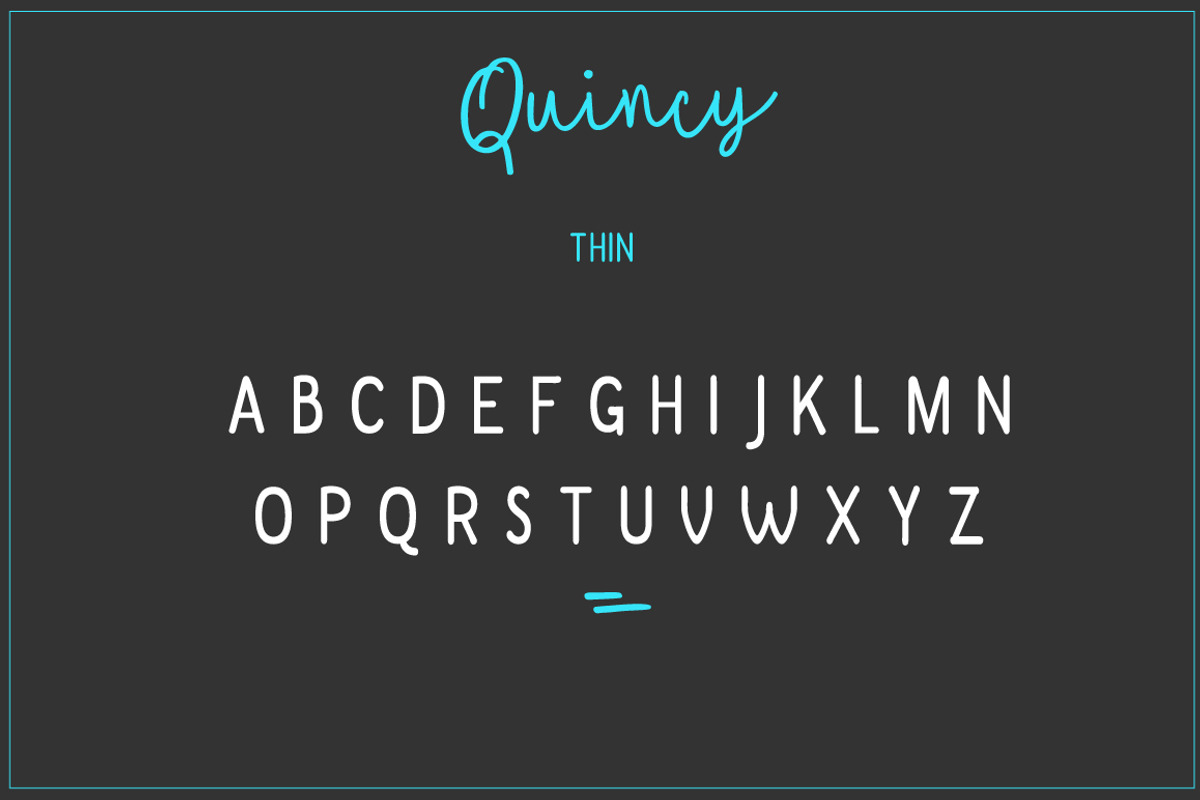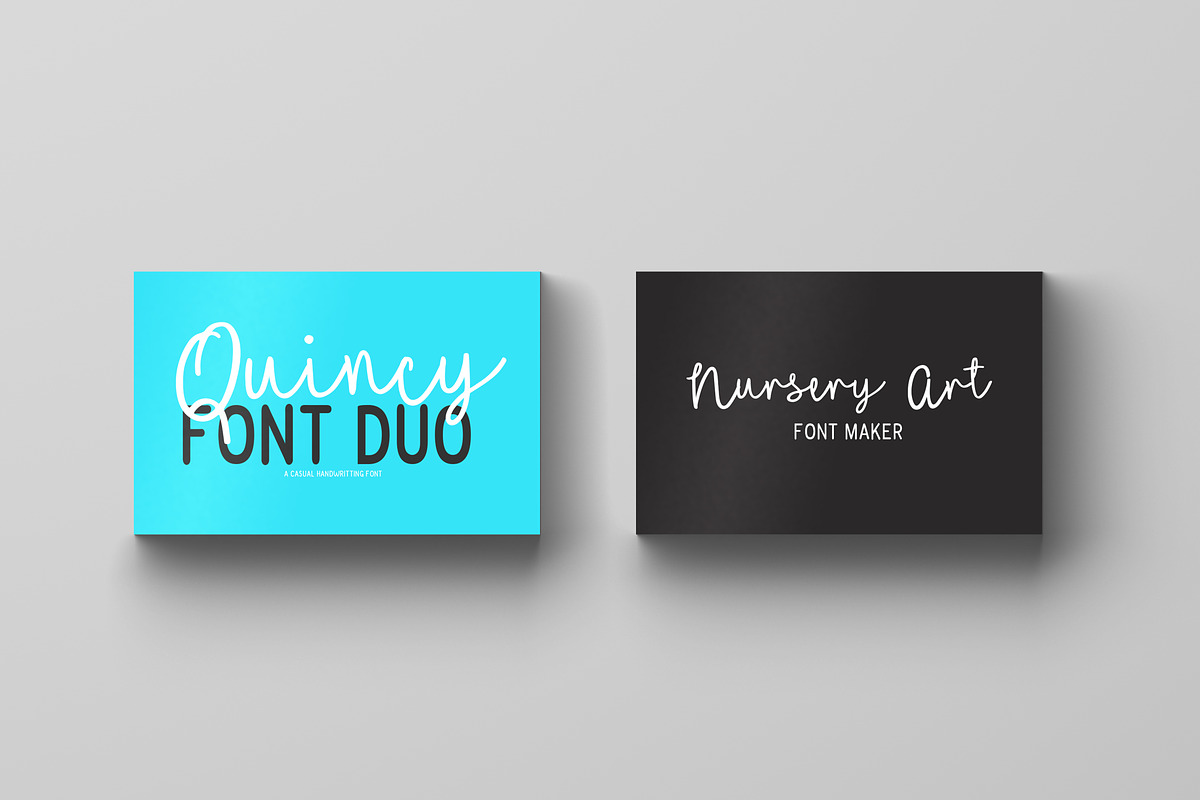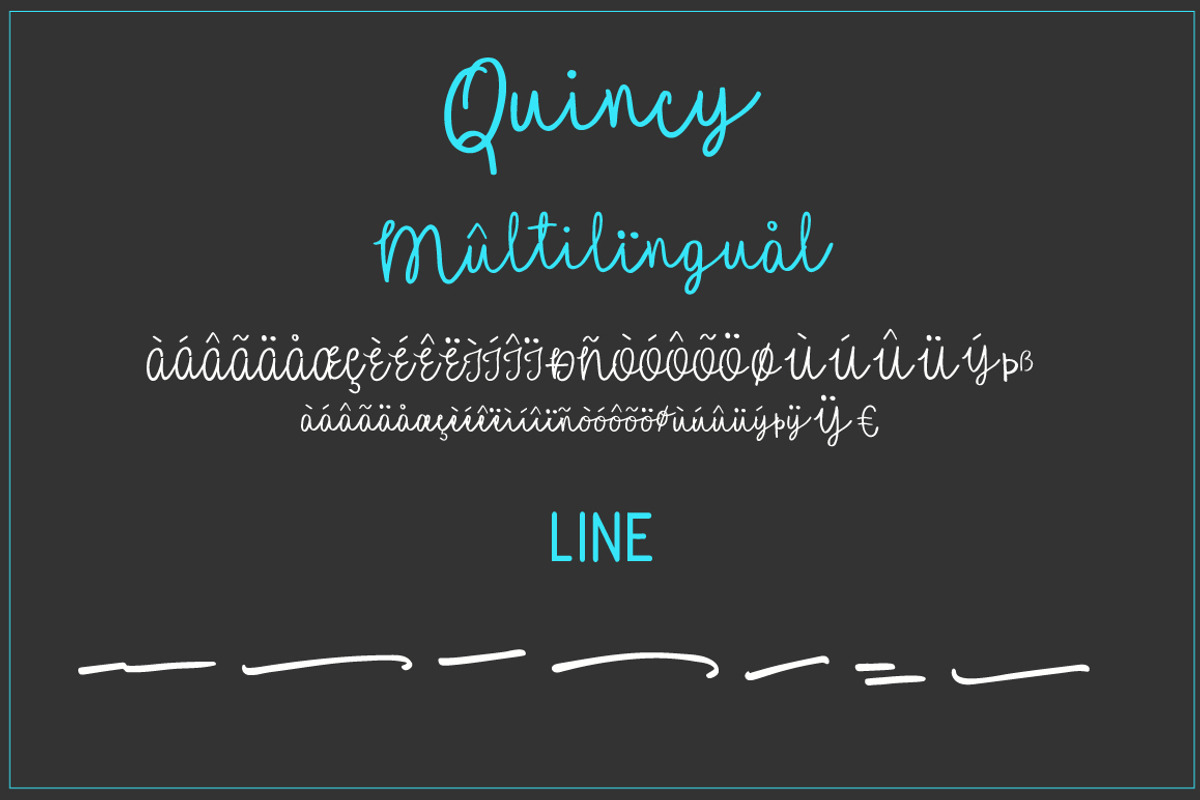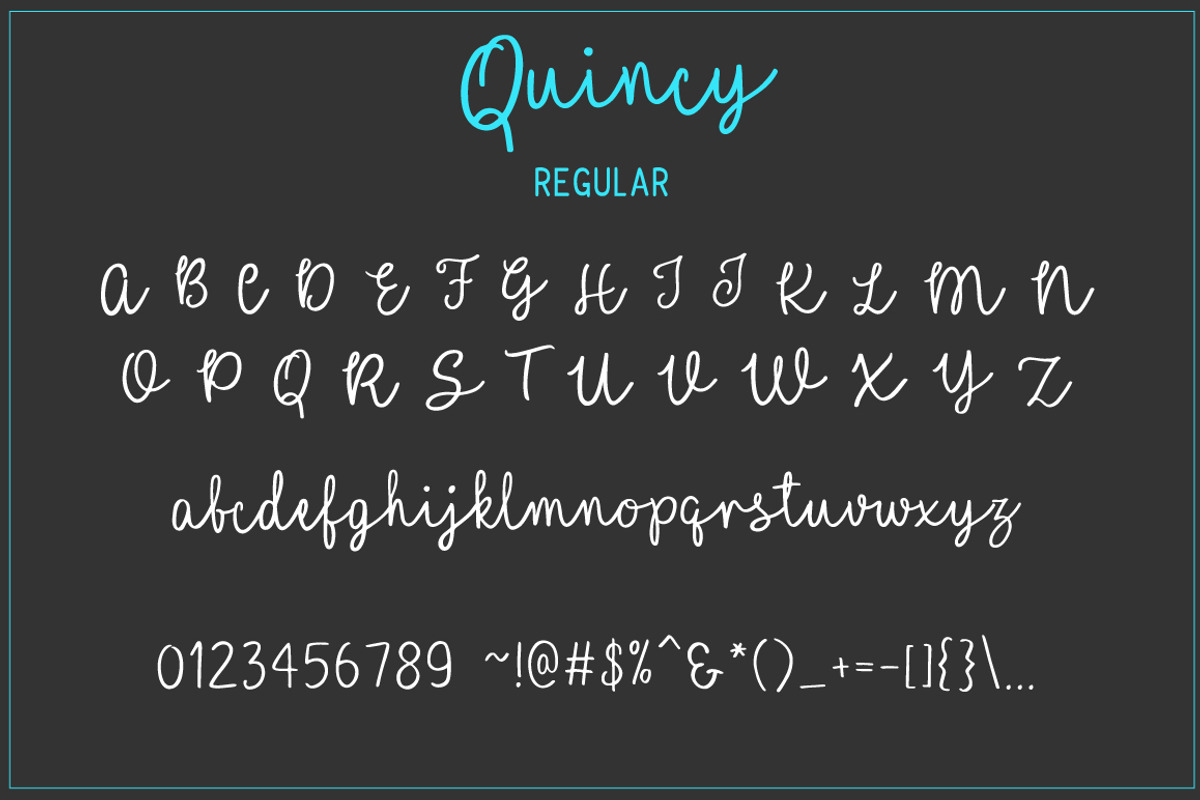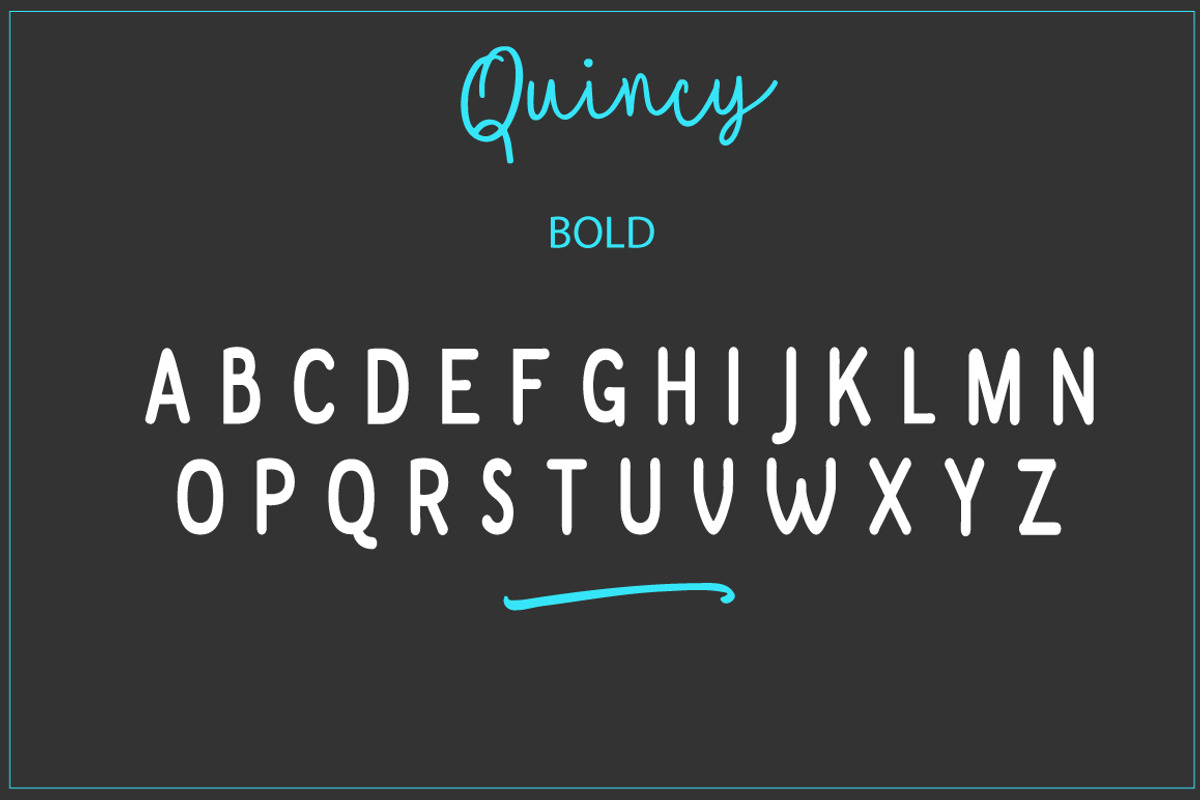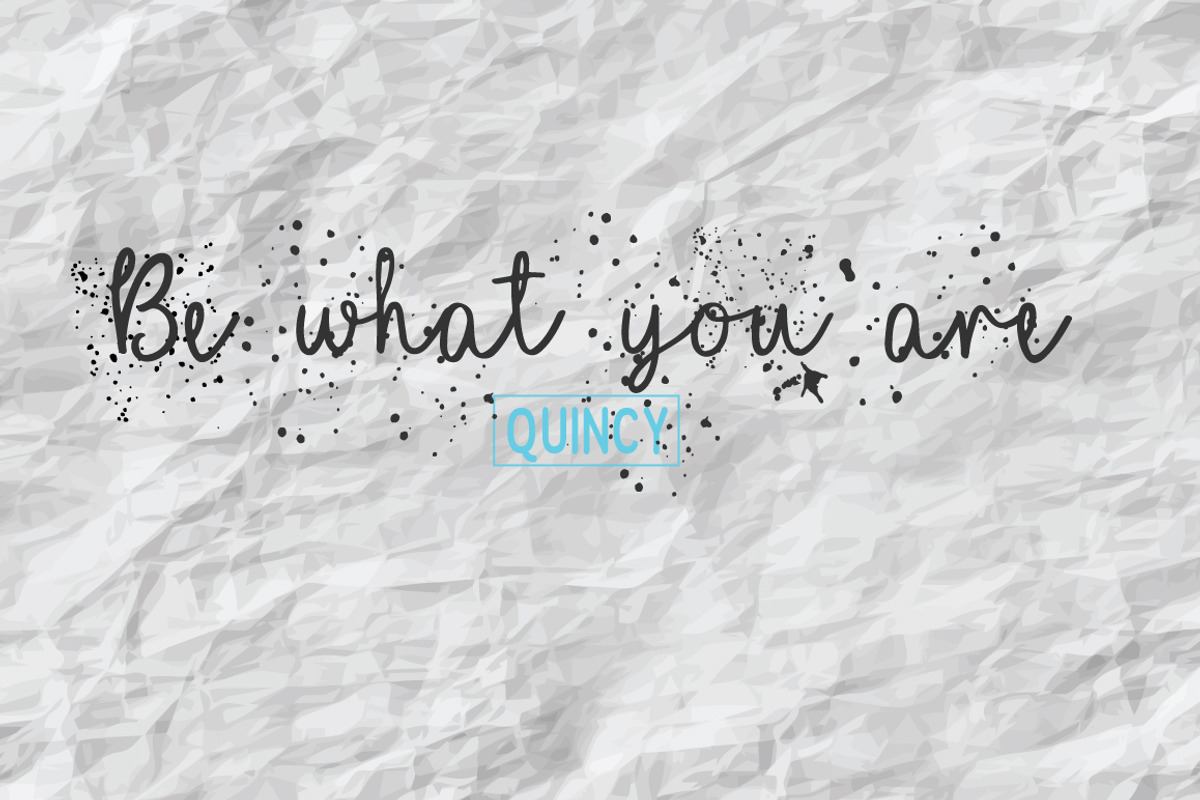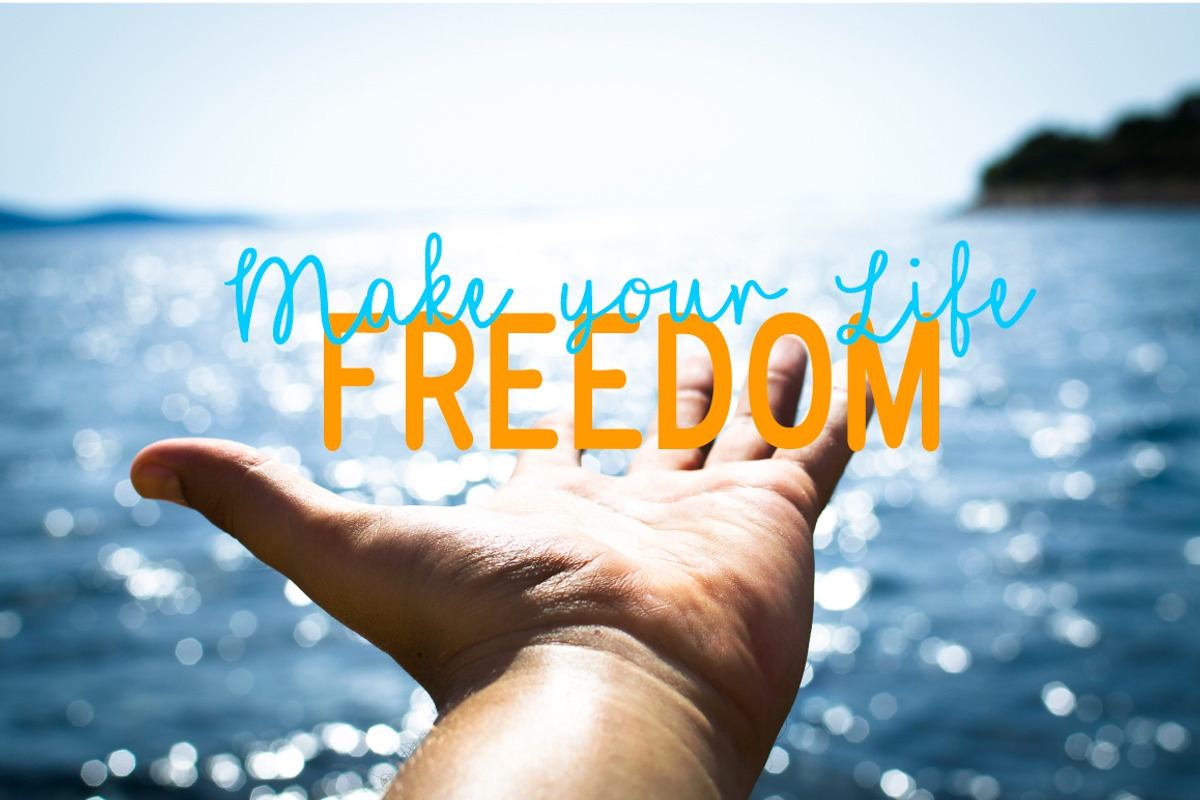
Quincy | Font Duo
It's handwritten script font.
This font a perfect for wedding invitation or your blog. Also with their help, you can create a logo or beautiful frame for your home. Or just use for your small business, book covers, stationery and more.
Include languages: English France Italian Spanish German Ducth Finnish Danish
Quincy | Font Duo by Artstudio fits naturally into Branding, posters, packaging, typography.